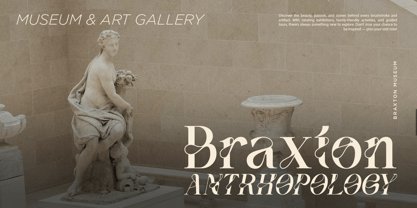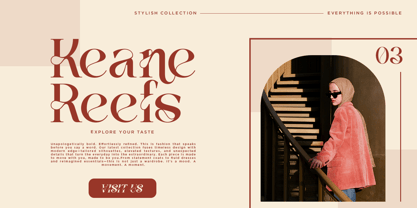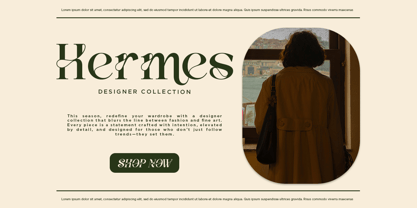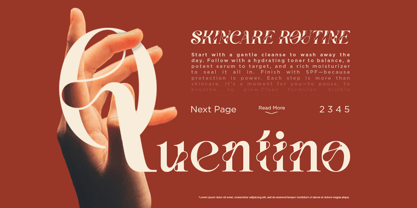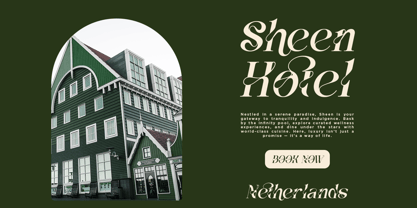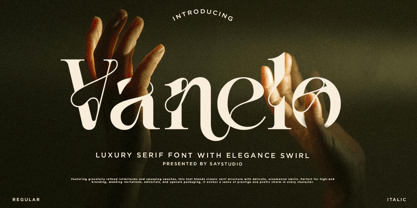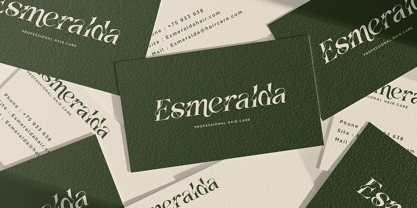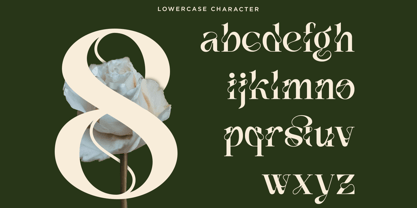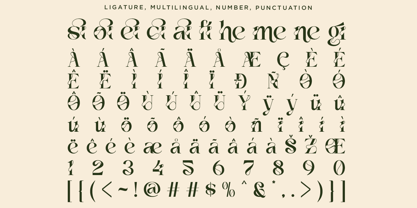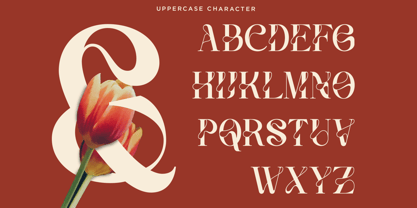
Vanelost
Vanelost is a luxury serif typeface with elegance swirl that blends dramatic curves with minimalist finesse.
Tailored for fashion editorials, branding for premium products, and elegant logos, Vanelost carries an aura of mystery and timeless beauty. Each glyph is meticulously crafted with unique alternates that elevate your typography game to the next level. Perfect for designers who crave modern elegance with a strong, graceful personality.